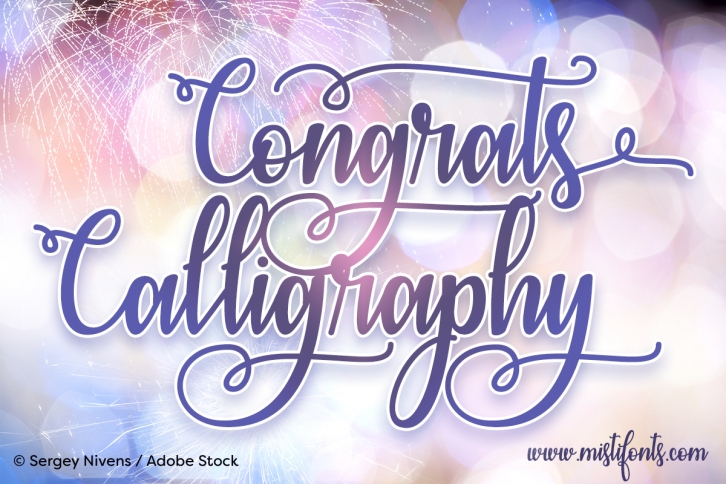
Congrats Calligraphy is a beautiful font that was designed by Misti Fonts. It's a great choice for designers and creatives who need such a font. It was released on June 9, 2017 and the file size is 12.39 MB. Congrats Calligraphy may give a more youthful, expressive and casual look to your project. It is a very beautiful, refined, elegant, and high-quality font.